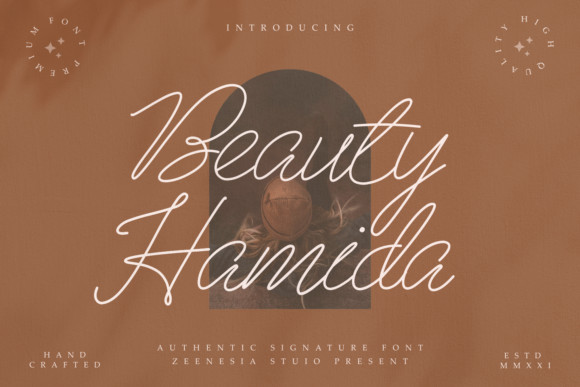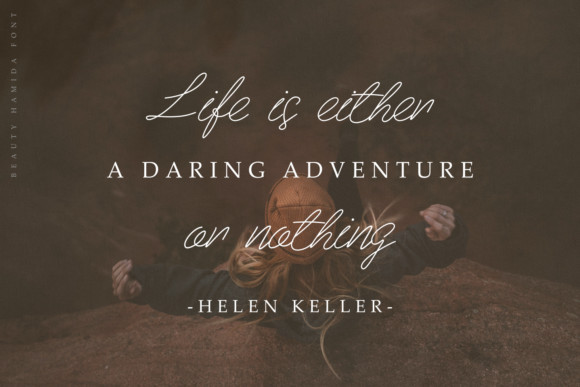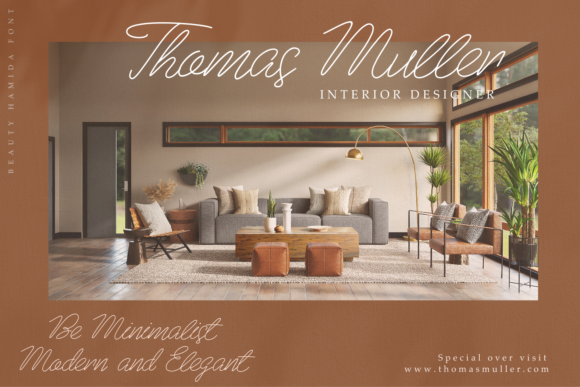
Beauty Hamida Font
Beauty Hamida is a flowing and thin lettered handwritten font. Suitable to a wide variety of designs due to its versatility, this font has the potential to become your favorite go-to font, no matter the occasion!